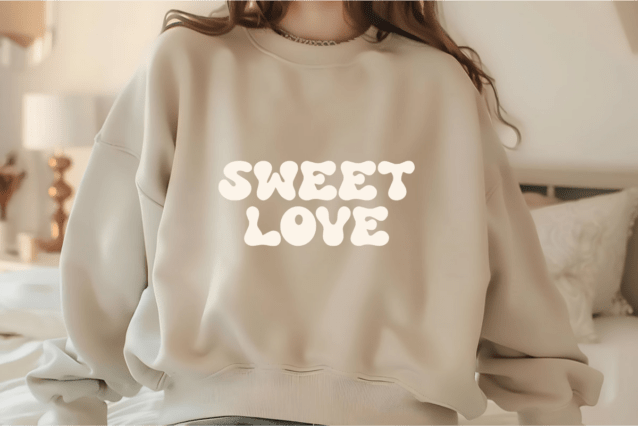
Shine Groovy Display Font
Shine Groovy Display Font is a playful and bubbly groovy font inspired by the retro 70s aesthetic. With its bold, chubby letterforms and fun wavy shapes, this font radiates a cheerful and nostalgic vibe. Perfect for vintage posters, branding, social media graphics, t-shirt designs, children’s books, and funky headlines, Shine Groovy adds a lively and charming touch to any creative project.